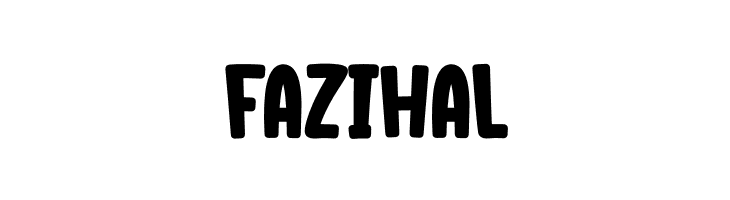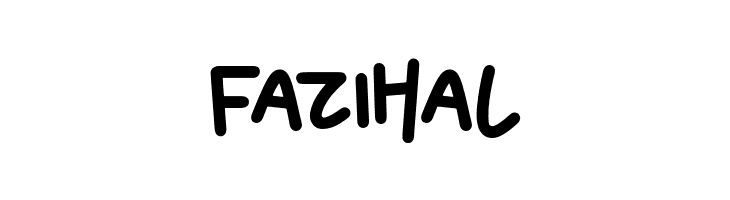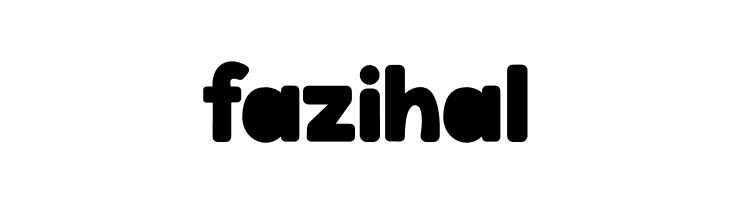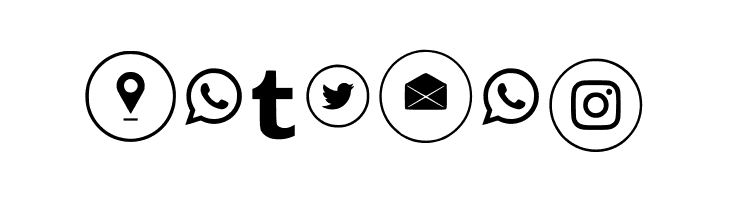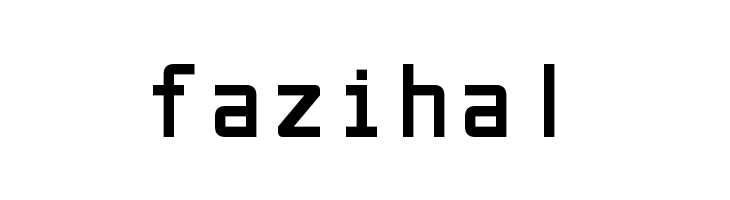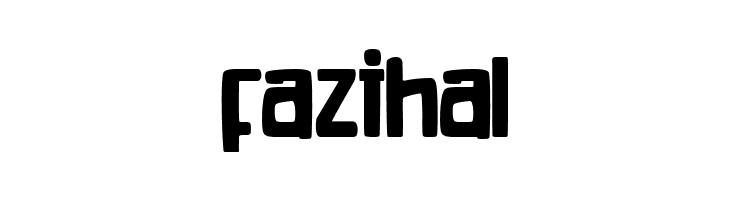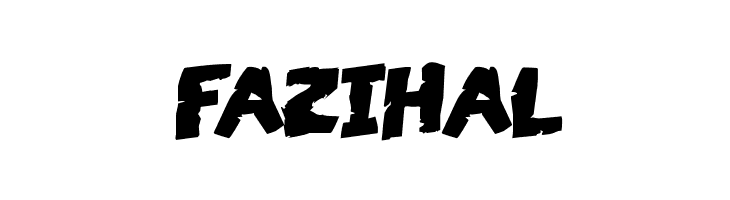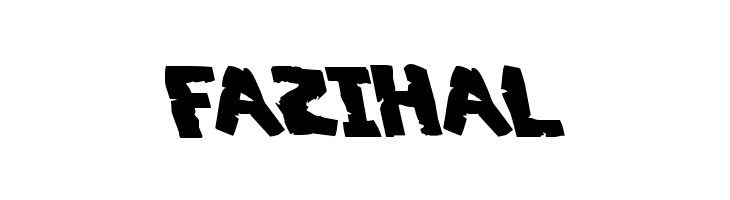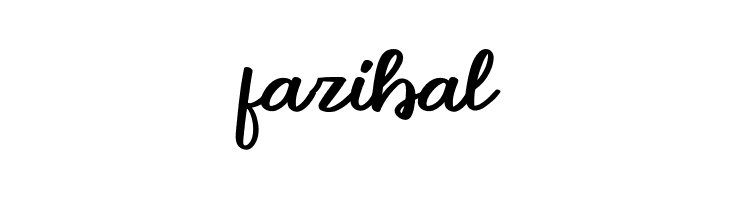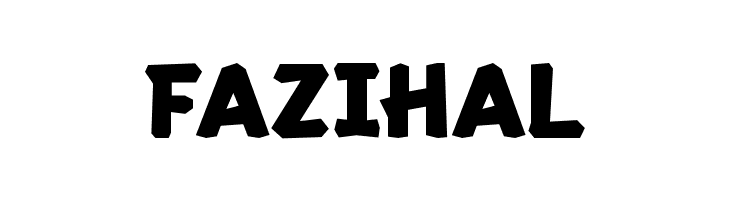
A playful, bold font with rounded edges and a hand-drawn feel.
A playful, bold font with rounded, hand-drawn characters.
A bold, rounded font with a playful and friendly style.
Icon-based font with social media and communication symbols.
A fluid, elegant handwritten font with smooth, connected strokes.
A modern, geometric monospaced font with clean lines and balanced spacing.
A bold, playful font with rounded edges and a hand-drawn look.
A bold, jagged font with dynamic, aggressive styling.
A rugged, distressed font with a bold, chiseled appearance.
A bold, rugged font with a distressed, graffiti-like appearance.
A lively and expressive script font with fluid, connected letterforms.
Bold, angular font with a rugged, industrial style.
A bold, angular font with a geometric and modern design.
A bold, rounded font with a modern and playful style.
A bold, angular font with a playful and energetic style.
A playful, hand-drawn font with bold, rounded strokes and a whimsical style.
A playful and quirky font with rounded and angular elements.
A playful, handwritten font with a crayon-like appearance.
A graceful and elegant script font with flowing, connected characters.
A bold, cursive font with fluid, elegant strokes.
A playful and artistic script font with dynamic strokes and expressive flair.
A playful, handwritten font with bold, rounded characters and a whimsical style.
A bold, modern sans-serif font with geometric lines and consistent stroke width.
A lively and expressive handwritten font with fluid, dynamic strokes.
A playful and energetic handwritten font with fluid strokes.
A bold, playful font with Halloween-themed elements and rounded characters.
A modern, elegant script font with flowing, cursive letters.
A bold, playful handwritten font with rounded strokes and a casual style.
A graceful and flowing script font with a handwritten style.
A bold, expressive brush-style font with a dynamic, handwritten appearance.
A sharp, graffiti-inspired font with elongated, edgy characters.
A bold, gothic-style font with sharp edges and intricate curves, perfect for horror or fantasy themes.
A bold, blackletter-style font with intricate detailing and strong vertical strokes.
A bold, cursive script font with smooth, connected letters.
An elegant, fluid script font with a sophisticated, handwritten style.